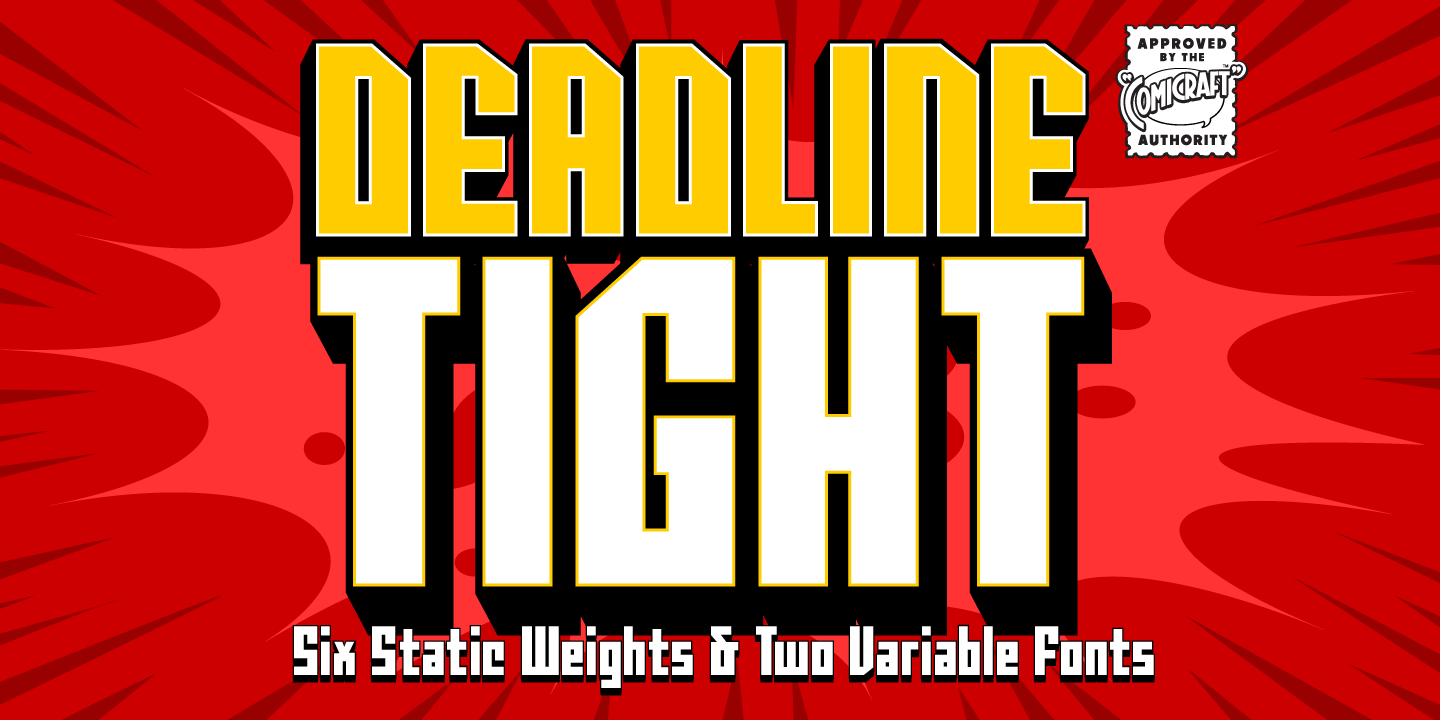
Deadline Tight
Buy NowDeadline Tight is a six-style display family from Comicraft Fonts with a compact, forceful look. Its angular, blocky construction, condensed proportions, and uniform stroke weight give it a sharp industrial feel, while shadowed and open variants add extra depth and graphic punch.
Built for bold display work, it suits posters, comics, headlines, packaging, signage, and branding that need a strong, tightly packed presence. The family includes Block, Doom, and Dreaded styles in both standard and open versions, giving you a range of dramatic treatments while keeping the overall voice consistent.
If you want a modern sans serif with heavy impact, tight spacing, and a distinctly stylized edge, this family offers plenty of attitude without losing clarity.